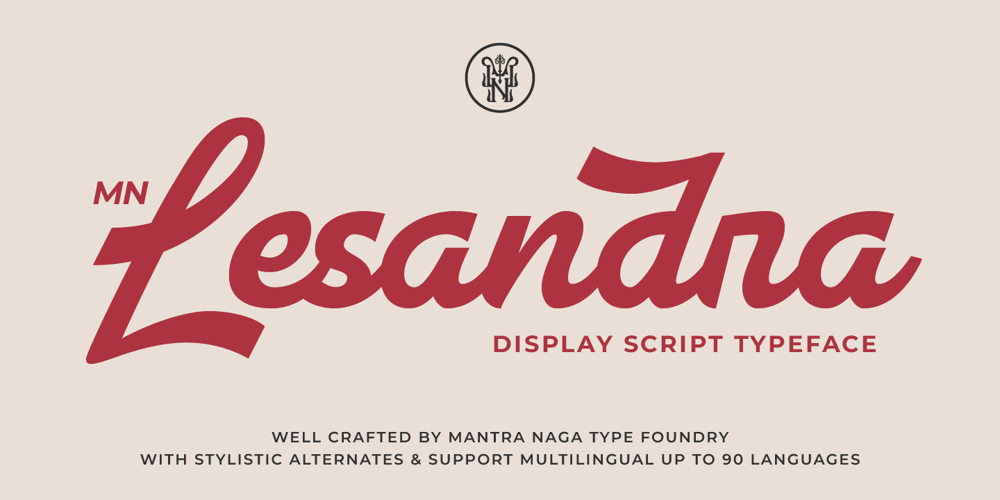
MN Lesandra Font Family was designed by Fredo Eka Pratama and published by Mantra Naga Studio. MN Lesandra contains 1 styles and family package options. Introducing MN Lesandra, a sophisticated display script typeface designed to blend vintage aesthetics with modern versatility. Perfect for branding, packaging, signage, and editorial design, this typeface exudes elegance and charm with its smooth curves and stylistic alternates.MN Lesandra supports multilingual usage with over 90 languages, making it an excellent choice for global projects. Its bold yet graceful strokes provide exceptional readability, whether used for titles, logos, or promotional graphics. This typeface is meticulously designed to add personality and sophistication to any design project. With its wide array of ligatures and alternates, MN Lesandra offers endless possibilities for creating unique typographic compositions. Its retro-inspired design fits seamlessly into modern and nostalgic design themes, making it a favorite among creative professionals. display script typeface, vintage-modern typography, retro-inspired fonts, elegant logo fonts, multilingual fonts for branding, stylistic alternates typeface, custom fonts for packaging, bold script fonts, elegant fonts, modern script fonts, best vintage fonts, fonts for branding design, fonts for creative posters, fonts for invitations, unique logo fonts, classic retro fonts, fonts for packaging design, modern calligraphy fonts